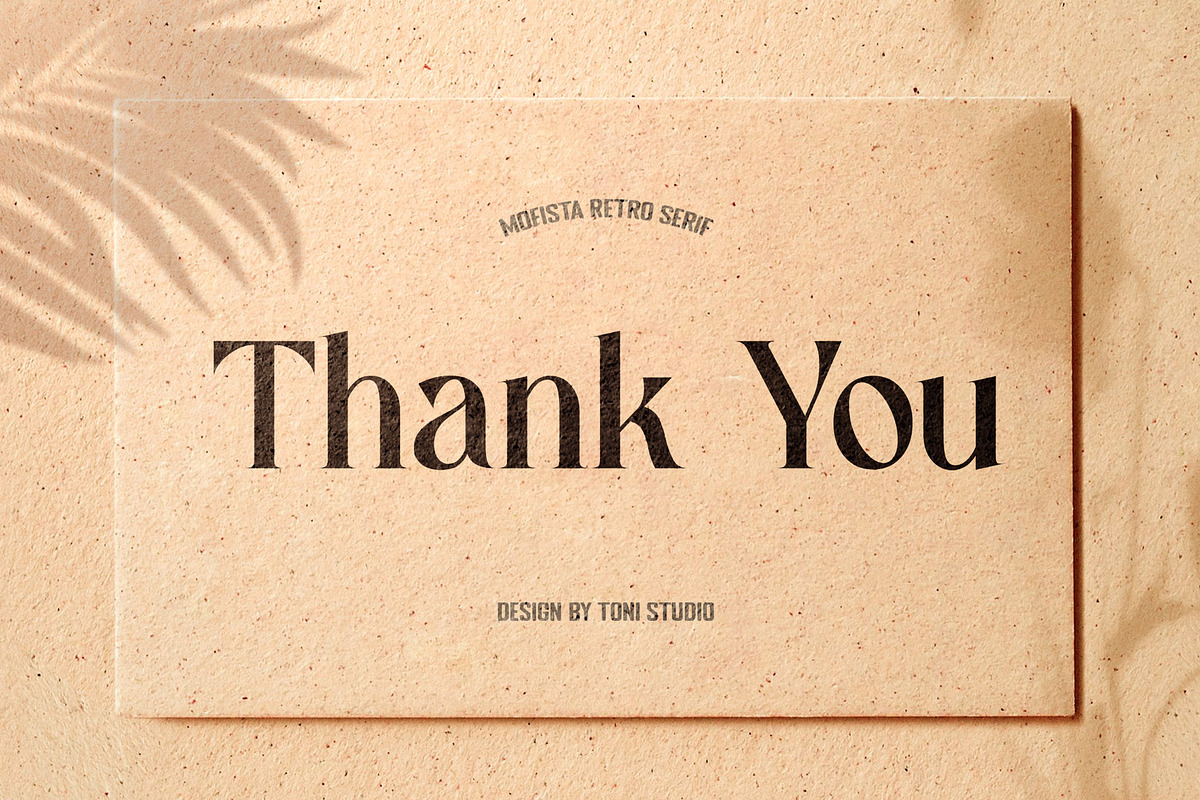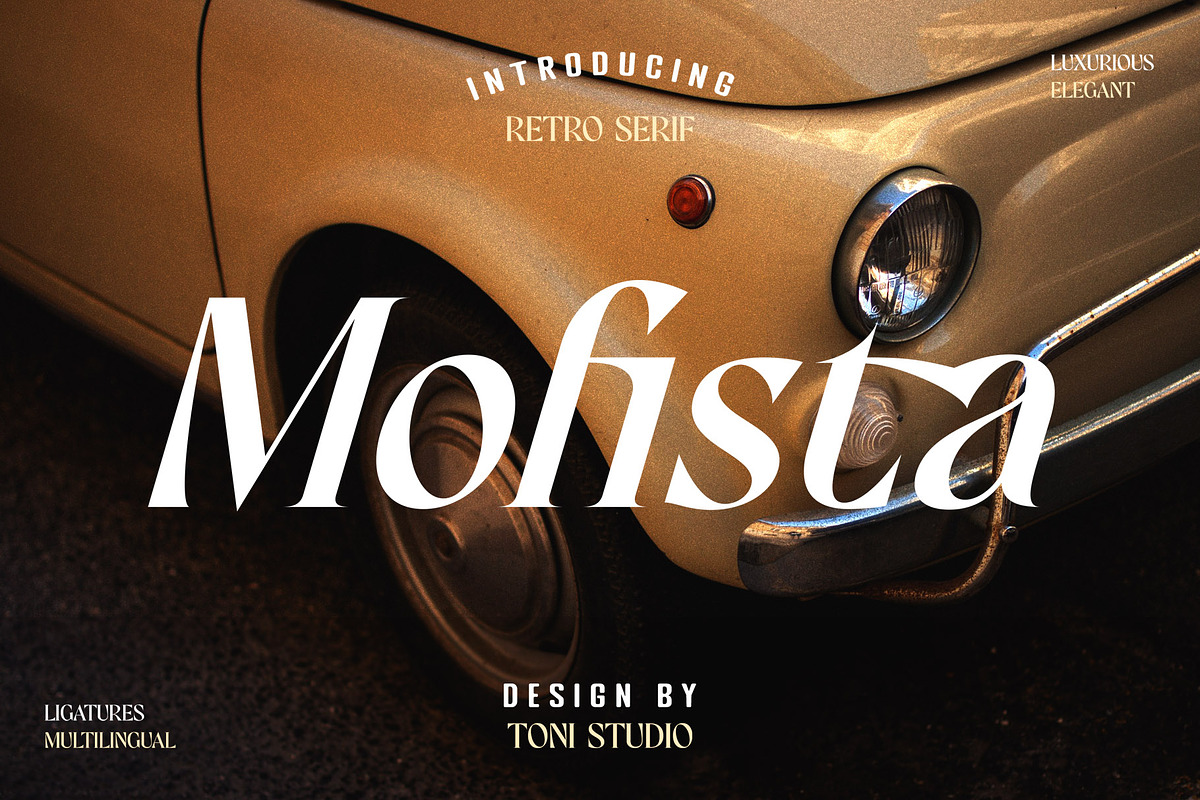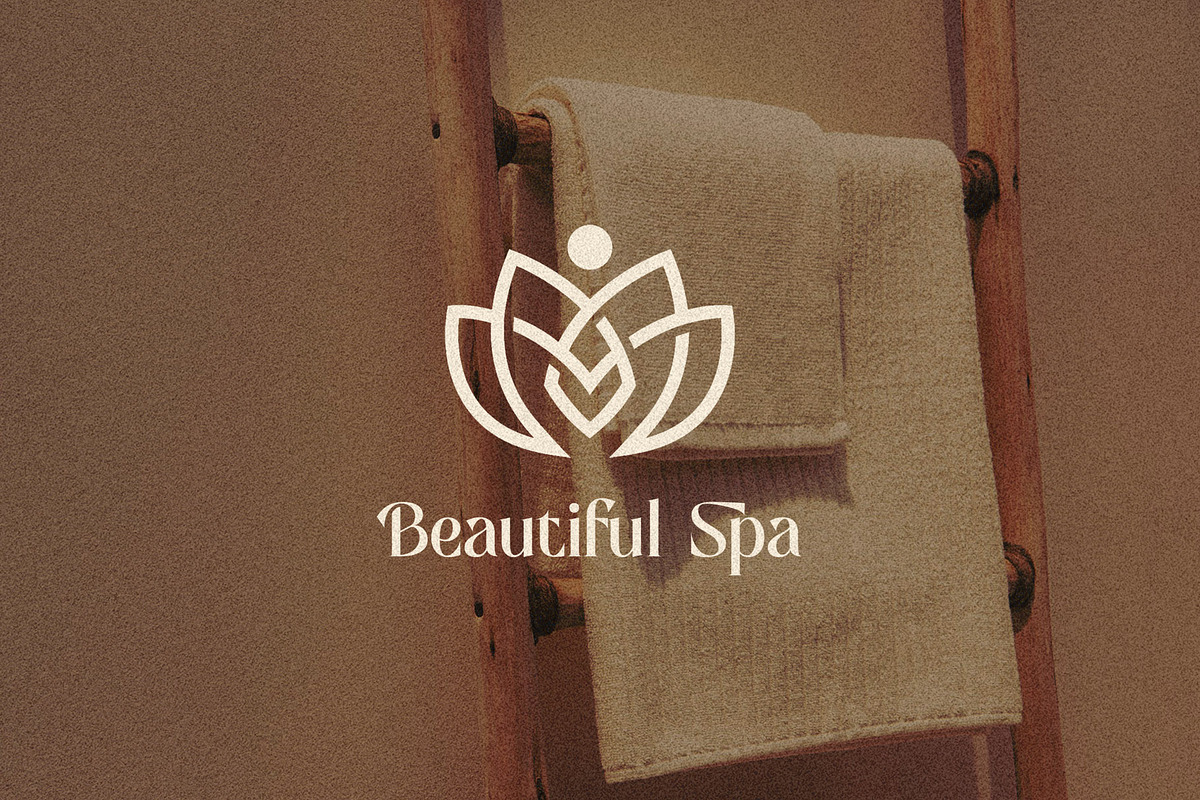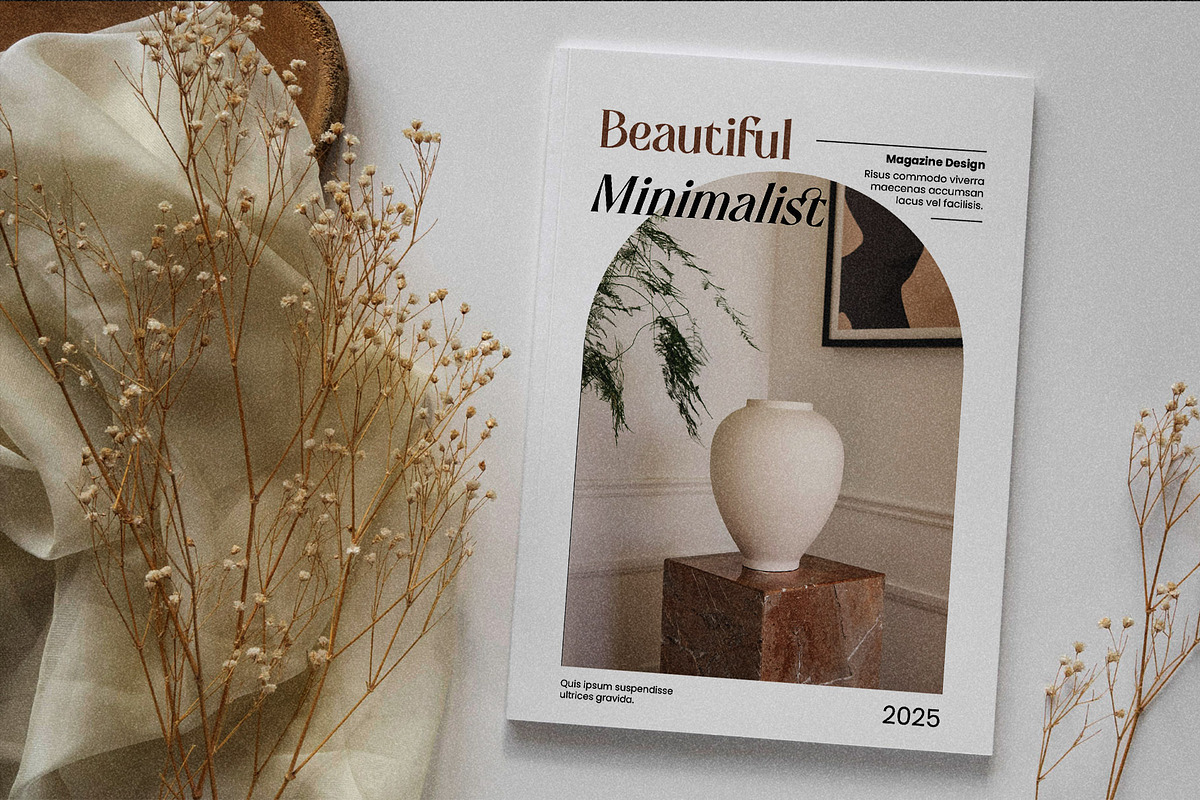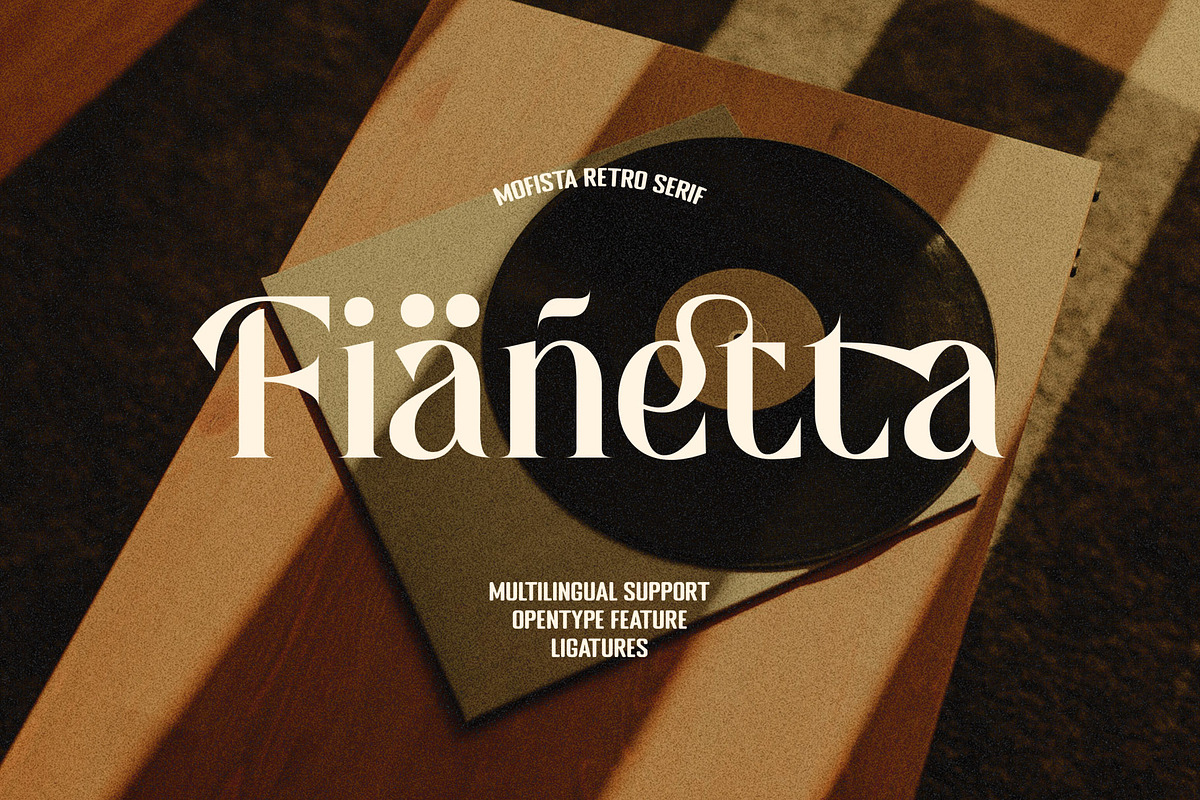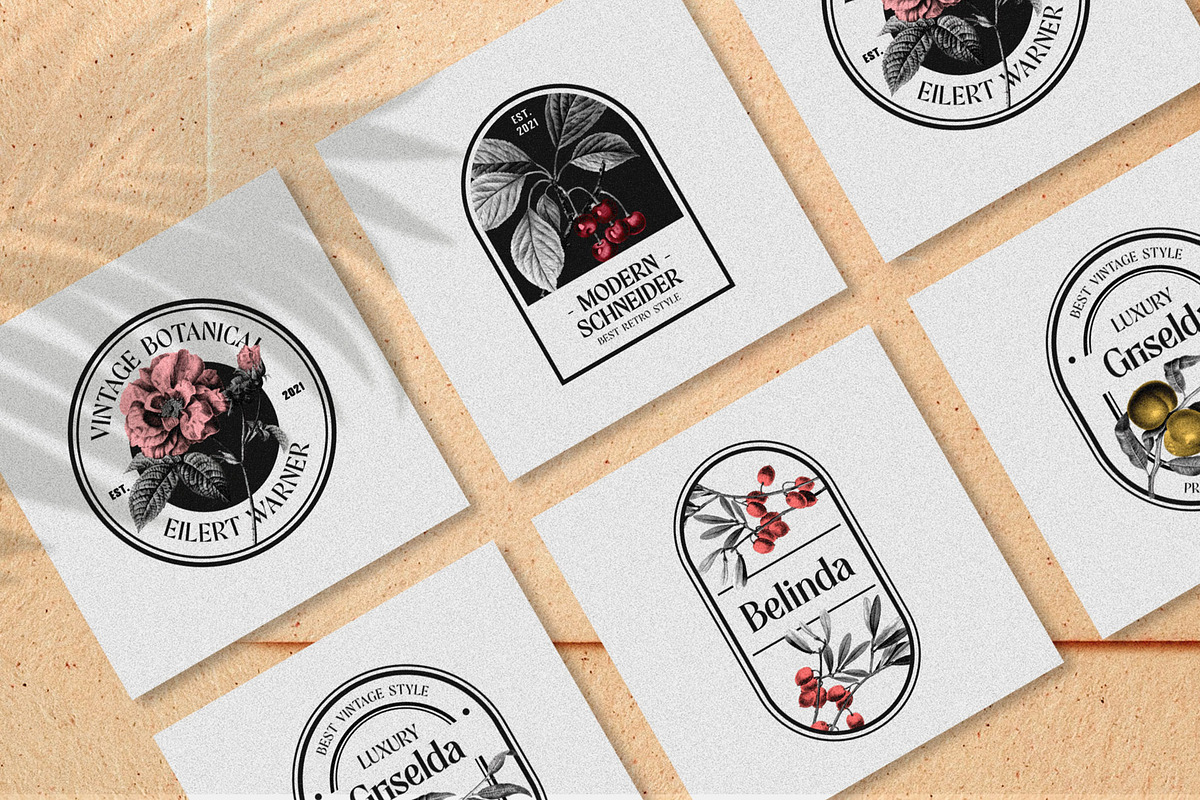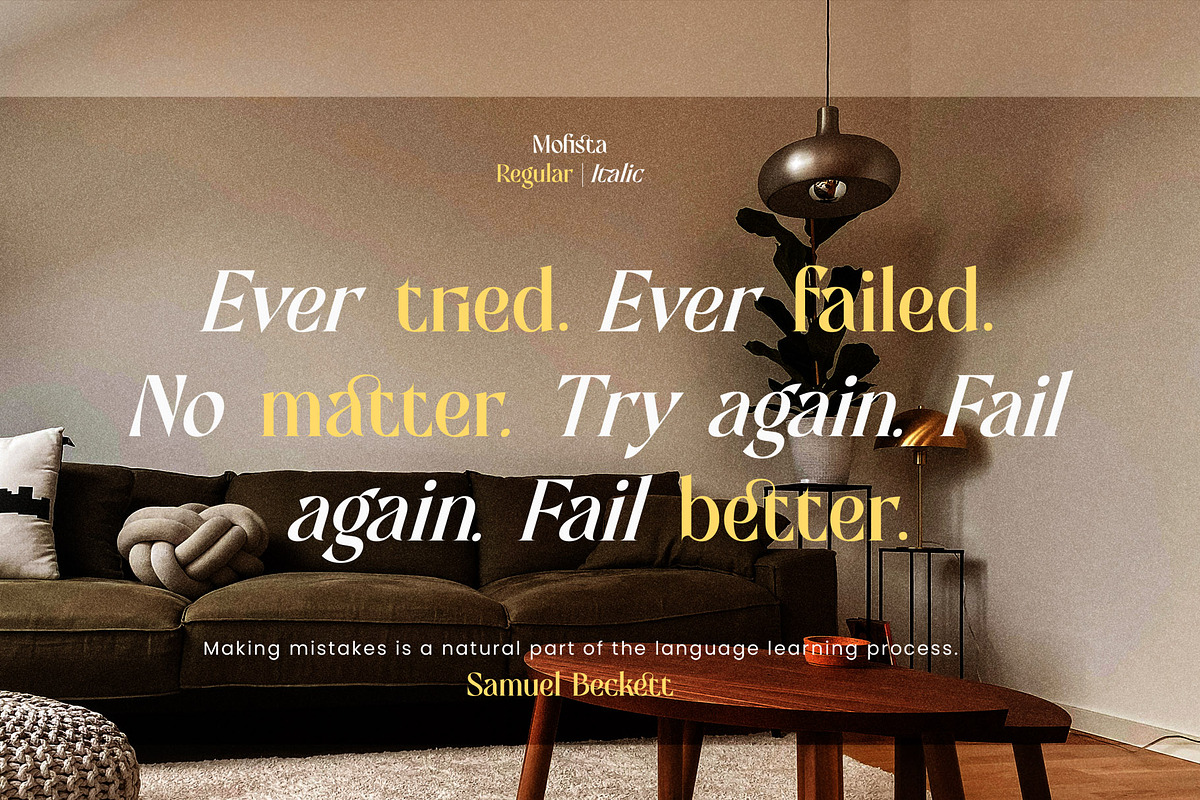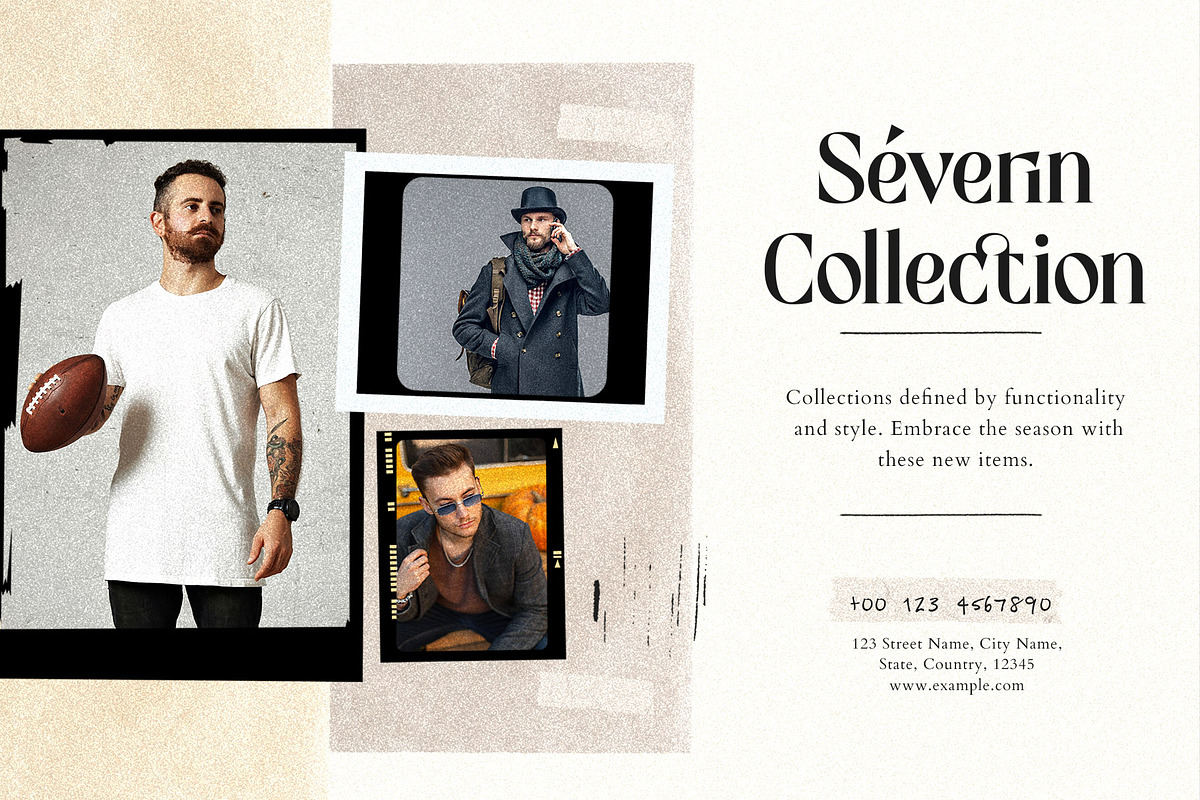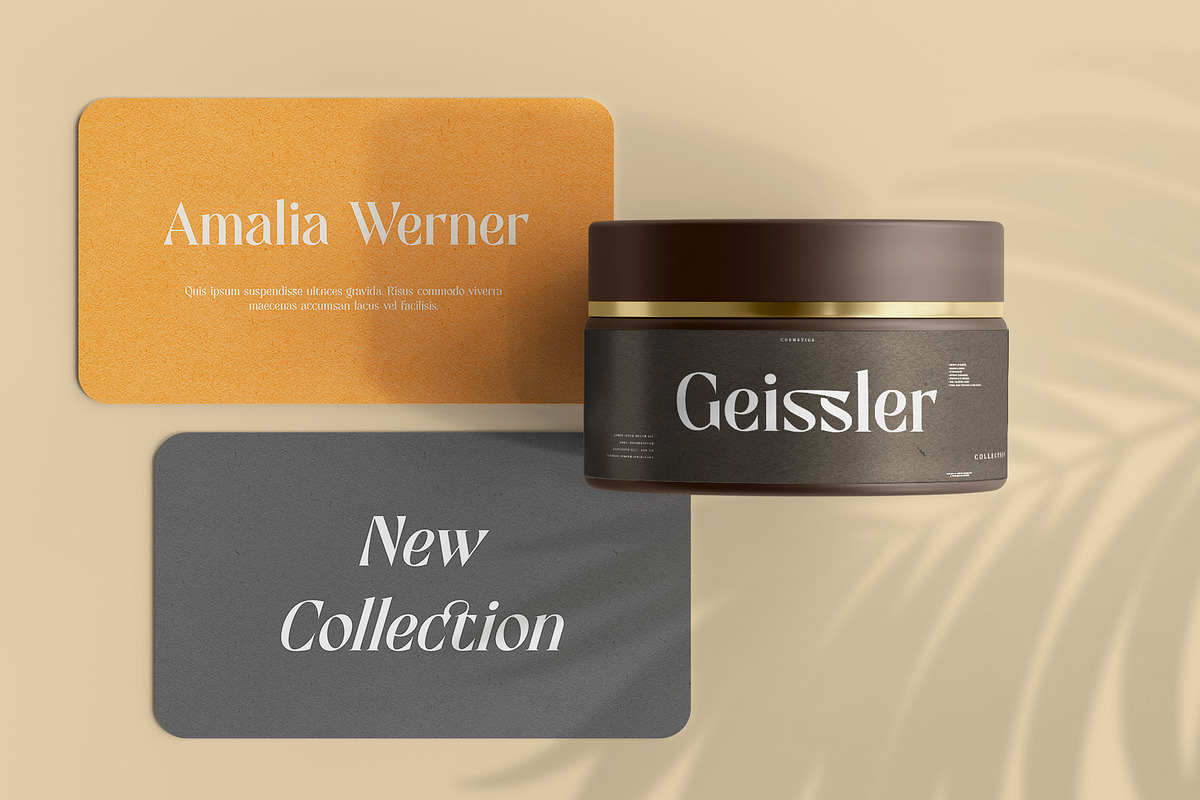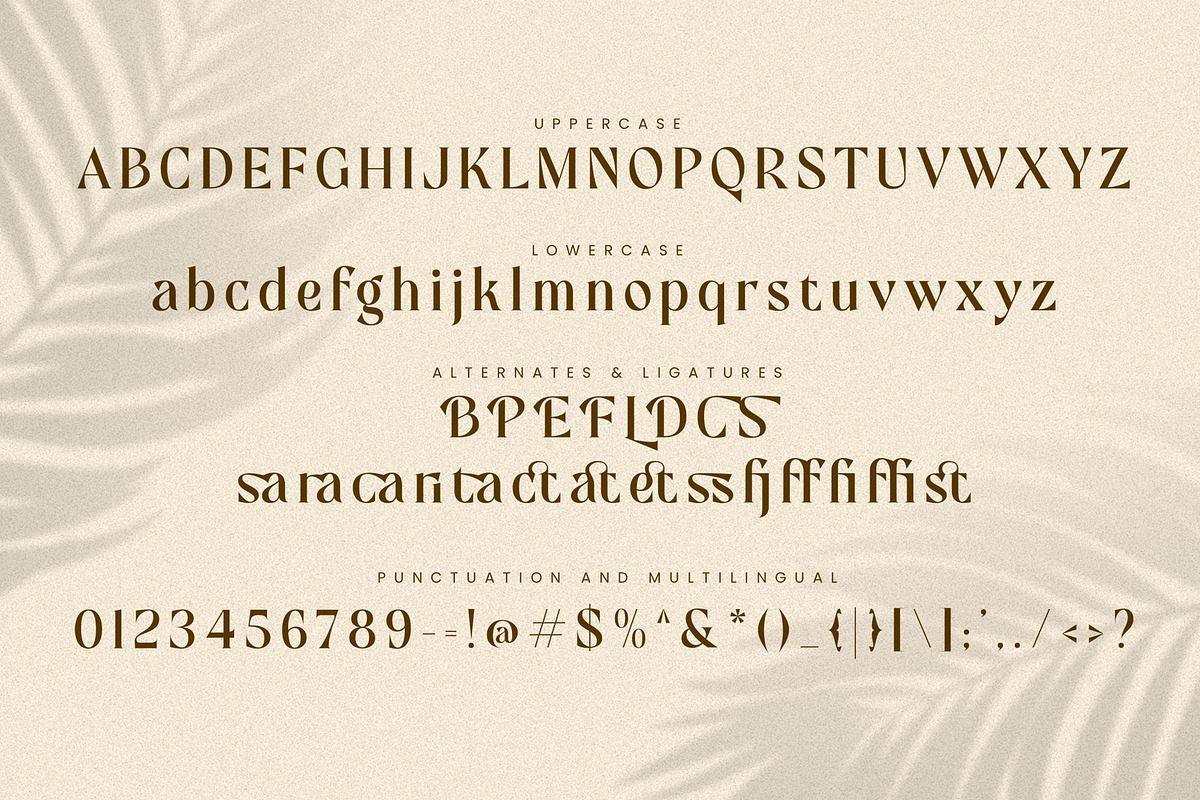
Mofista-Nostalgic Serif Typeface
Introducing a new retro font, Mofista is a modern serif typeface that honors expressive old style serif typography, the Mofista font comes with alternatives that will make your presentation or logo stand out even more! This font will make your project look retro, chic and neat. Its soft, juicy serif gives the typeface just the right amount of warmth and nostalgia. While hinting at classics like Cooper, the reinterpretation features some unconventional letterforms that make for a very dynamic italic romance. suitable for many projects: invitations, postcards, posters, books, advertisements, websites, blog headers, logos, brands, magazines, fashion, photography, etc. This font is a must-have in your collection and is perfect for your next design project.
Mofista Features:
-Mofista(Regular,Italic) -Uppercase And Lowercase -Numerals & Punctuation -alternatif characters Multilingual Support. While using this product, if you encounter any problem or spot something we may have missed, please don't hesitate to drop us a message. We'd love to hear your feedbacks in order to further fine-tune our products.